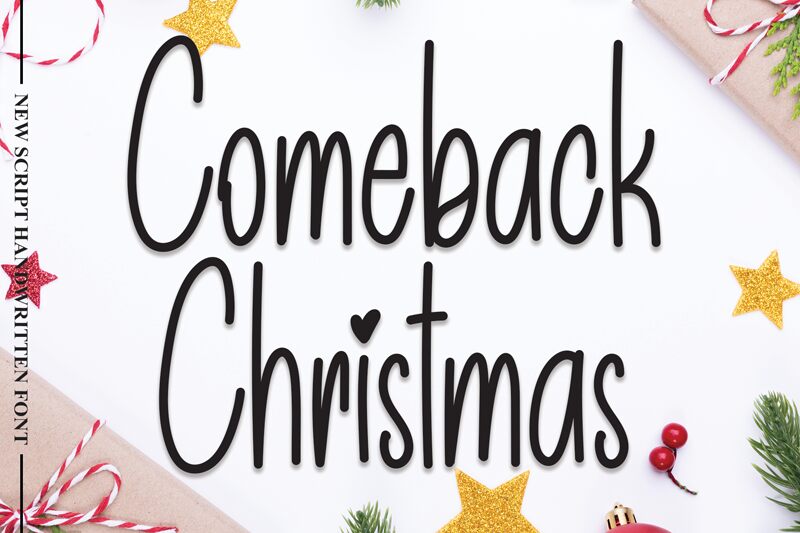
Comeback Christmas
Comeback Christmas, a creation by Scratchones, brings the warmth and charm of the holiday season to life through its handwritten aesthetic. This semi-light font captures the essence of intimate Christmas notes and heartfelt holiday messages with its flowing, easy-to-read characters that seem to dance off the page like a joyful carol.
The font's casual elegance is perfect for personalized greeting cards, festive invitations, and seasonal marketing materials that require a touch of authenticity. The Comeback Christmas font's unique character shapes and subtle weight variations mirror the handcrafted appeal of ink on paper, making it an excellent choice for designers looking to infuse their projects with a nostalgic yet contemporary vibe.
Whether you're crafting an endearing gift tag or designing an enchanting event poster, Comeback Christmas stands out with its distinctive style that encapsulates the spirit of yuletide joy.